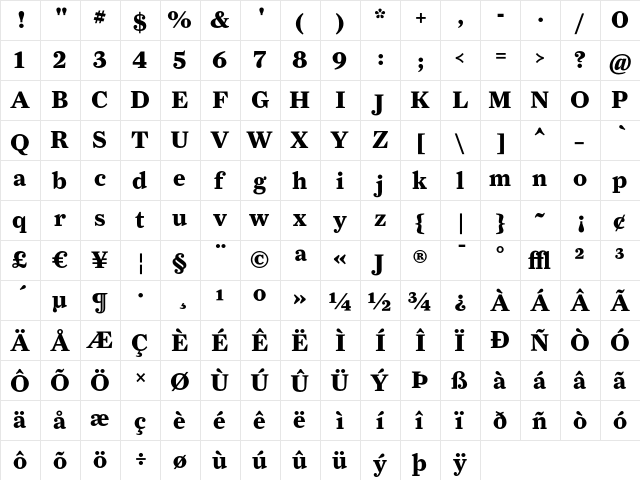
FarnhamText-BoldLF Regular Font Preview
FarnhamText-BoldLF Regular
Design Context for FarnhamText-BoldLF Typeface
FarnhamText-BoldLF is a composed and adaptable typeface that performs quietly and consistently across a wide range of design contexts. The heavy weight commands attention and anchors typographic hierarchies.